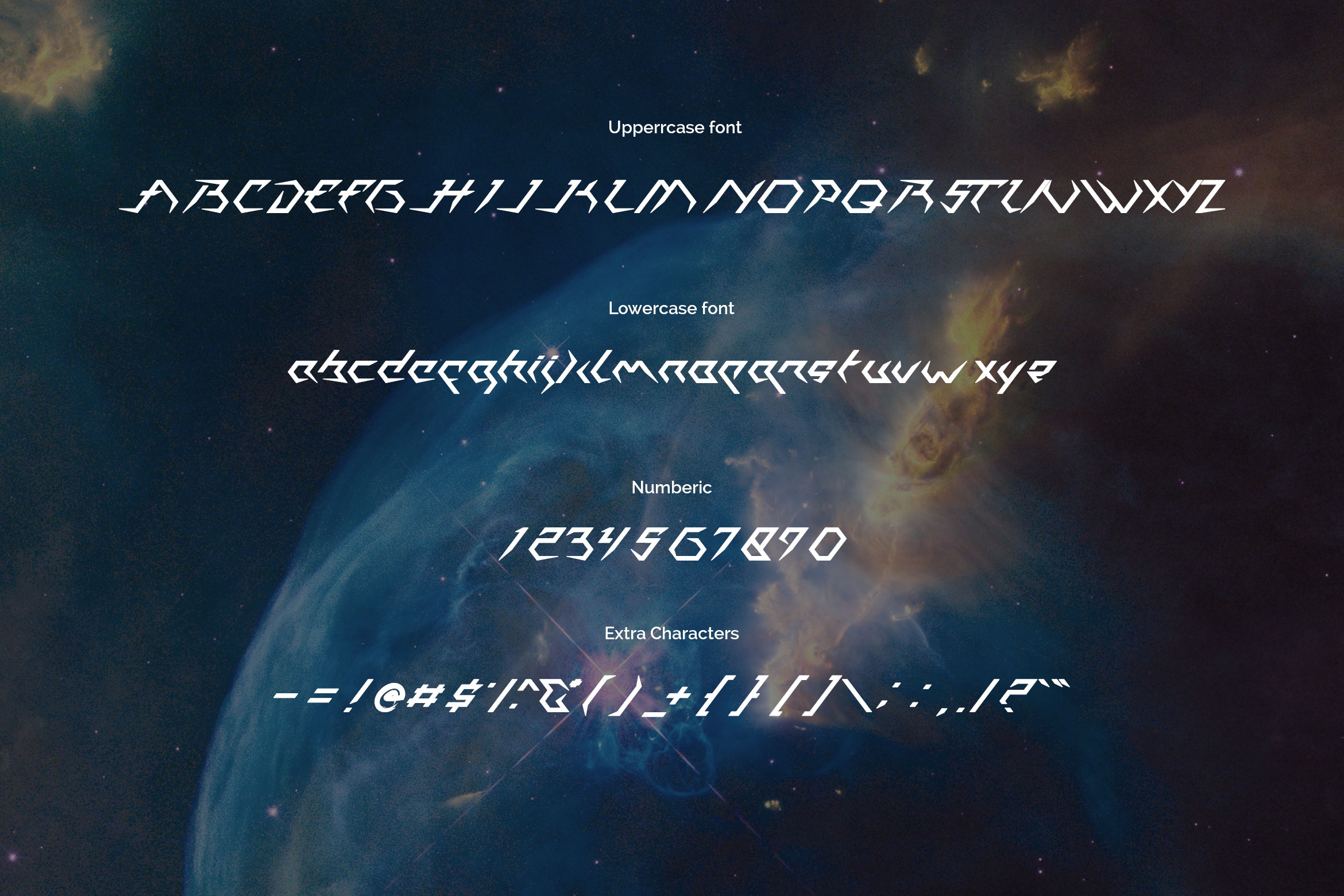
Casiopeia Font: Elevate Your Designs with a Modern and Futuristic Touch
In the world of typography, fonts play a crucial role in conveying the message and aesthetic of a design. With numerous options available, selecting the right font can be overwhelming, especially for designers and crafters seeking a unique and captivating look. This is where Casiopeia font comes into play – a modern and futuristic typeface that exudes elegance, legibility, and a touch of sophistication.
What is Casiopeia Font?
Casiopeia is a contemporary font designed to make a statement. Its sleek lines, precise curves, and futuristic feel make it an excellent choice for a wide range of display and headline designs. Whether you’re working on a branding project, advertising campaign, or simply looking to add a touch of modernity to your craft, Casiopeia font is sure to impress.
Key Features of Casiopeia Font
- Elegant and Legible: Casiopeia boasts a clean and refined design, ensuring that your text is easy to read and visually appealing.
- Modern and Futuristic: The font’s sleek lines and curves give it a cutting-edge feel, perfect for designs that require a contemporary touch.
- Versatile: Casiopeia can be used for a variety of projects, from headlines and titles to logos and branding materials.
- Highly Customizable: The font is designed to be adaptable, allowing you to experiment with different styles, colors, and effects to suit your design needs.
Benefits of Using Casiopeia Font
So, why choose Casiopeia font for your next design project? Here are just a few benefits:
- Stand Out from the Crowd: With its unique and futuristic design, Casiopeia font helps your text stand out and grab attention.
- Enhance Readability: The font’s elegant and legible design ensures that your message is conveyed clearly and effectively.
- Boost Brand Identity: Casiopeia font can help establish a strong brand identity, particularly for businesses and organizations seeking a modern and sophisticated look.
- Easy to Pair: The font pairs well with a variety of other typefaces, making it easy to create harmonious and visually appealing combinations.
Design and Craft Applications
Casiopeia font is an excellent choice for a wide range of design and craft applications, including:
- Graphic Design: Use Casiopeia font to create stunning posters, flyers, brochures, and other marketing materials.
- Branding and Logo Design: The font’s modern and futuristic feel makes it perfect for logos, business cards, and other branding materials.
- Web Design: Casiopeia font can add a touch of sophistication to your website’s typography, making it ideal for headlines, titles, and other display text.
- Crafting and DIY Projects: Whether you’re creating handmade cards, gift tags, or other craft projects, Casiopeia font can add a professional and polished touch.
In conclusion, Casiopeia font is a versatile and captivating typeface that can elevate your designs and craft projects to the next level. Its modern and futuristic feel, combined with its elegance and legibility, make it an excellent choice for a wide range of applications. Whether you’re a designer, crafter, or simply someone looking to add a touch of sophistication to your project, Casiopeia font is definitely worth considering.